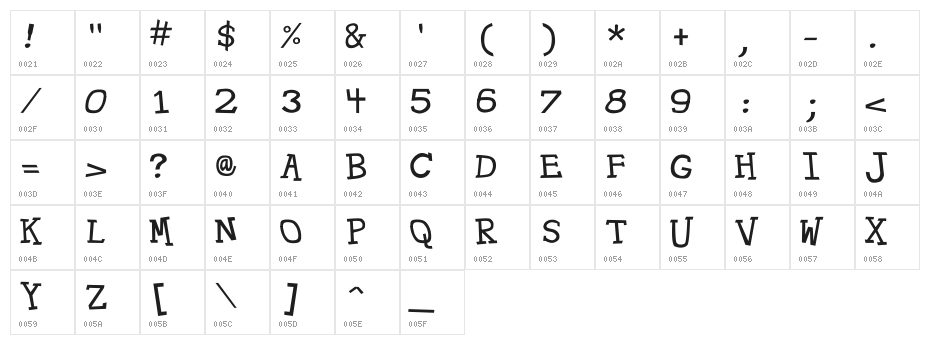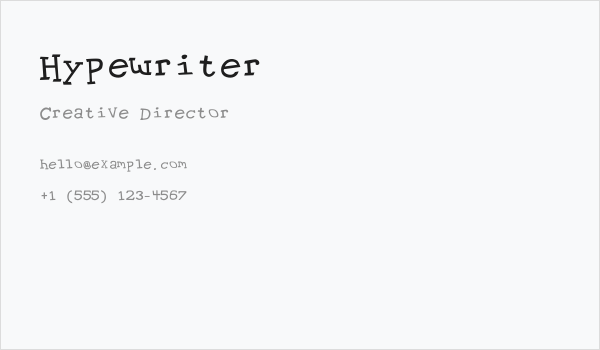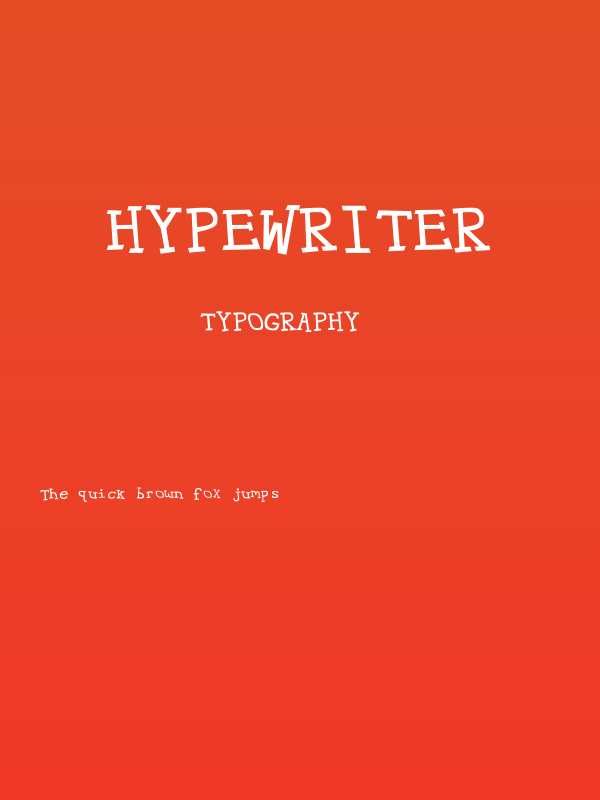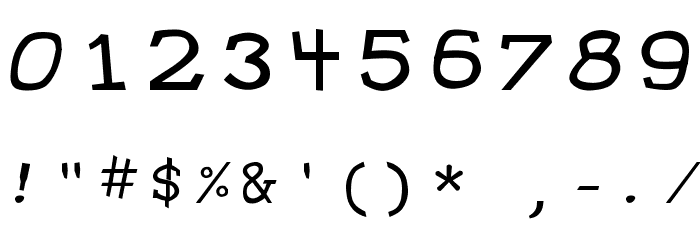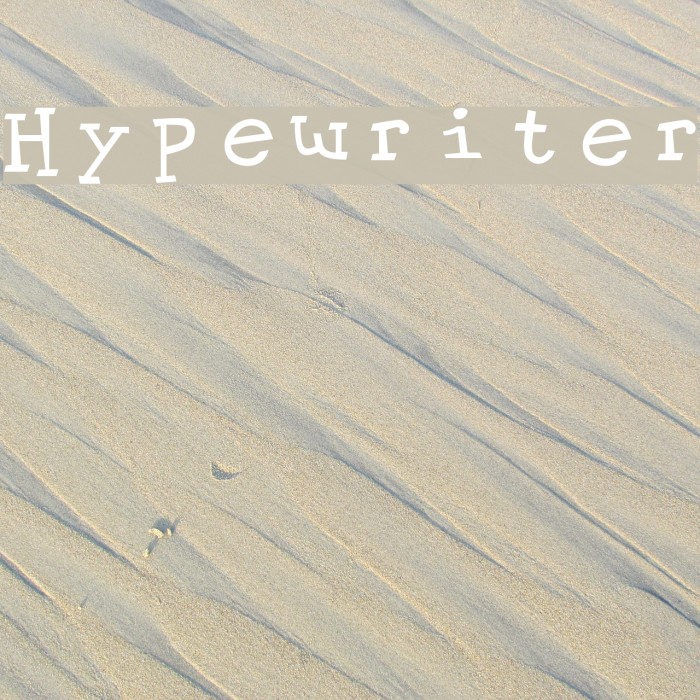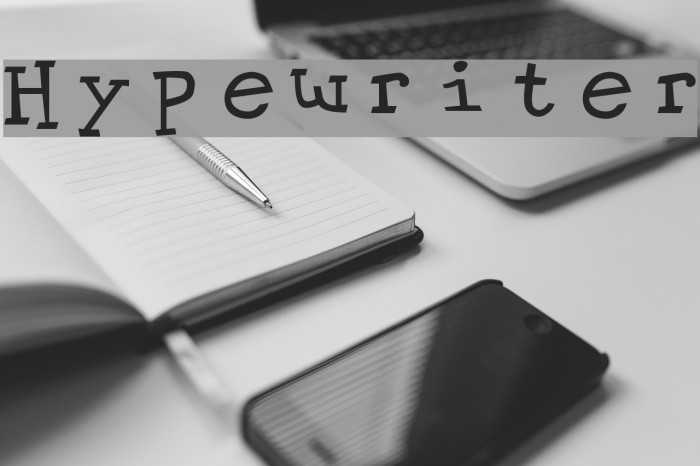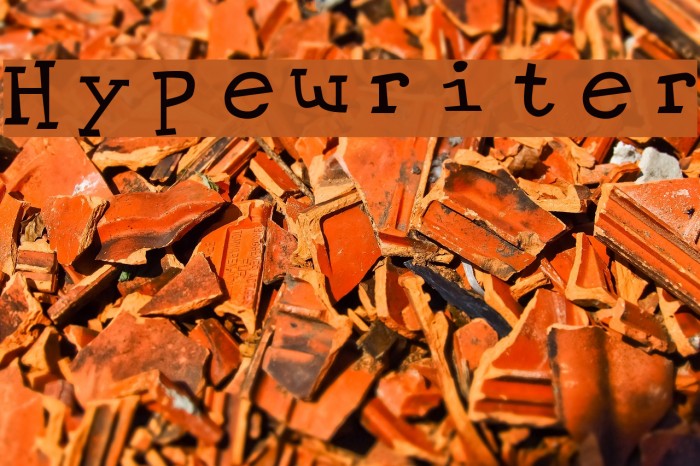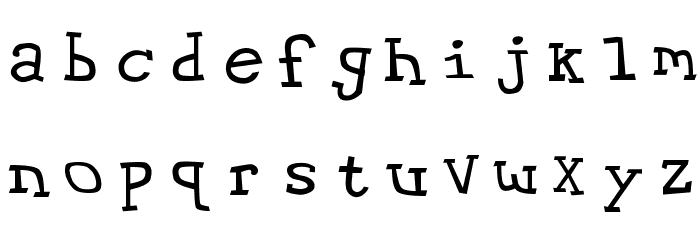
Hypewriter Font
Hypewriter Description
This font exudes a vintage typewriter aesthetic, characterized by its monospaced, uneven strokes that mimic the irregularities of old mechanical typewriters. The uppercase and lowercase letters maintain a consistent height, with slight variations in stroke width that add to its authentic, retro charm. The numerals and special characters follow the same style, providing a cohesive look across all glyphs. Its nostalgic feel is perfect for projects that aim to evoke a sense of history or authenticity, making it a versatile choice for both digital and print media.
| Overall Style | Vintage |
| Use Case | Headlines, Body text, Logos |
| Proposed Projects | Ideal for retro-themed designs, typewriter art, historical documents, and creative writing projects. |